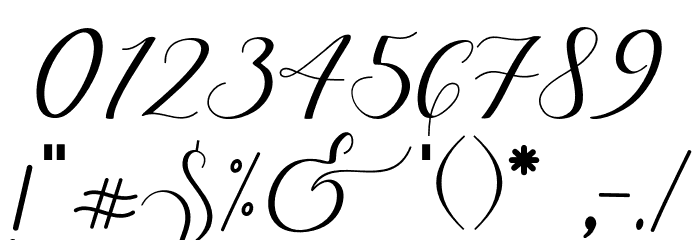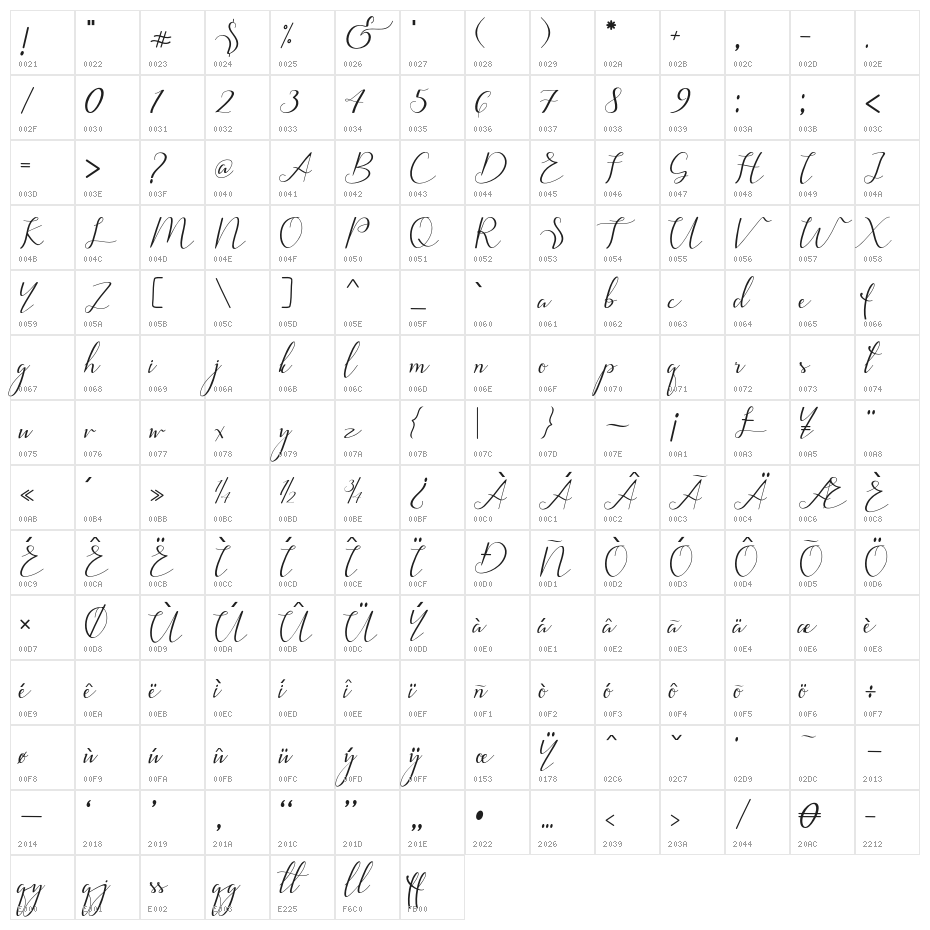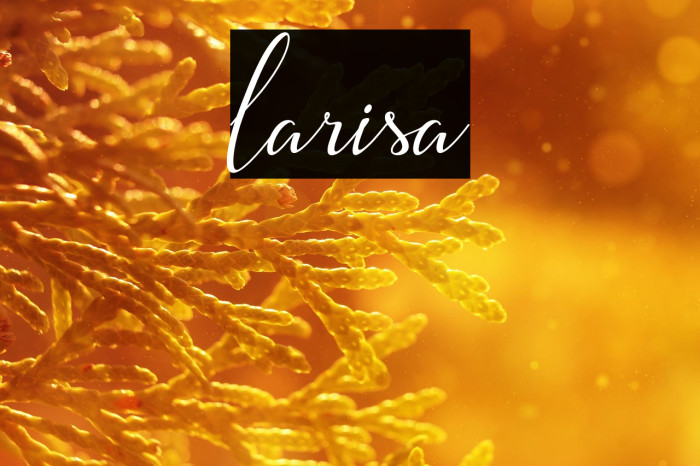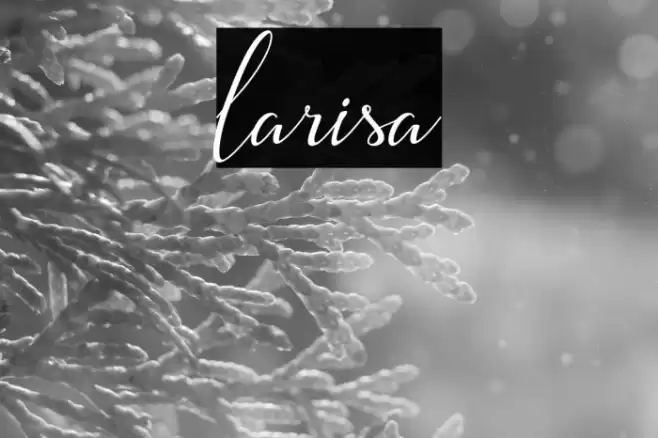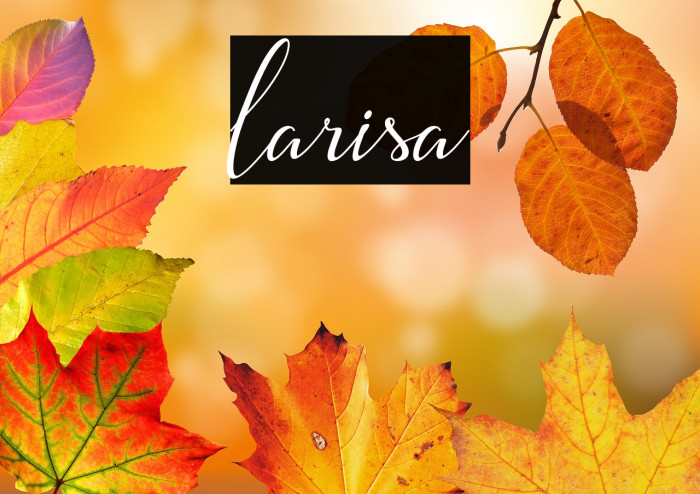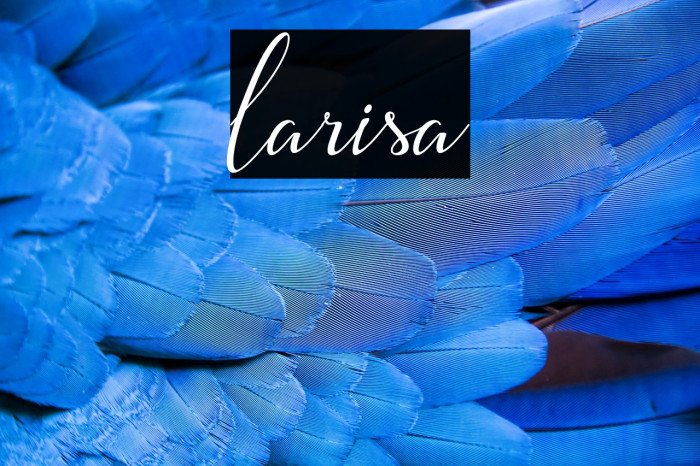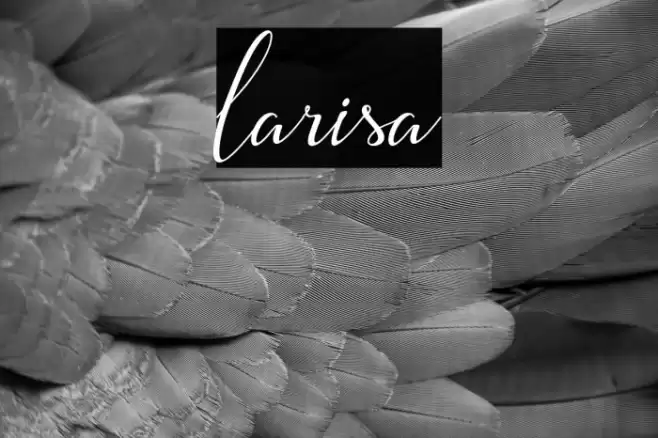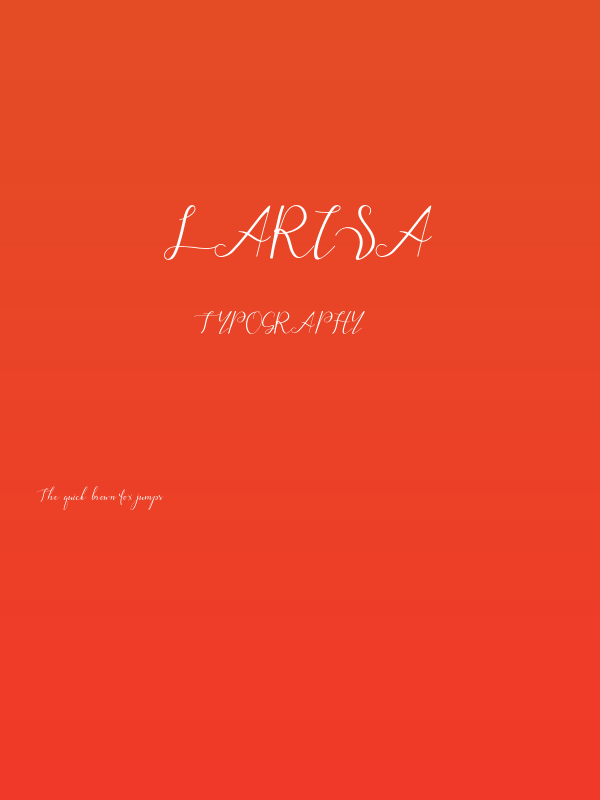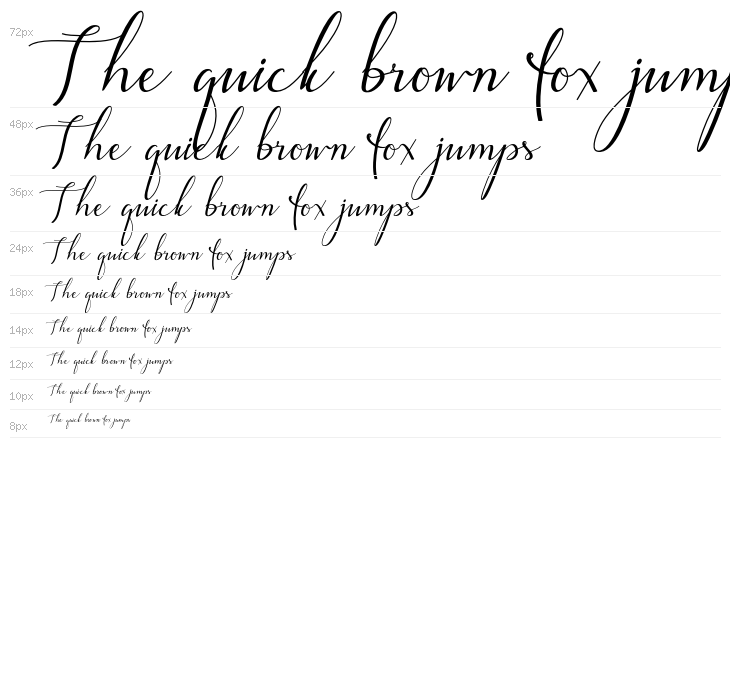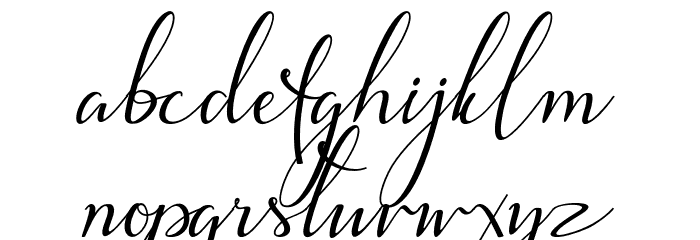
larisa Font
larisa Description
This elegant script font features flowing, interconnected letters that exude a sense of sophistication and grace. The uppercase letters are tall and slender, with delicate curves and loops that enhance their refined appearance. The lowercase letters maintain a consistent style, with smooth transitions and a slightly more compact form. The numerals are stylishly designed, complementing the overall aesthetic of the font. Special characters are thoughtfully crafted, maintaining the font's cohesive and elegant look. This font is perfect for projects that require a touch of class and elegance.